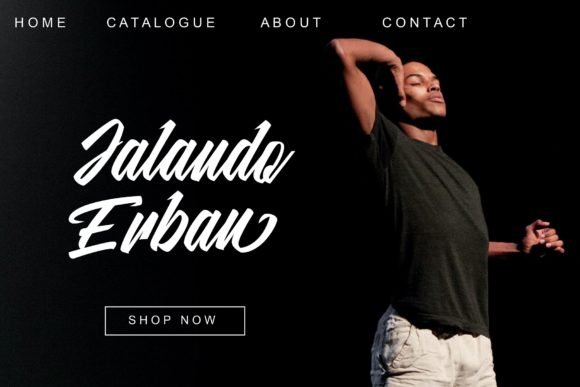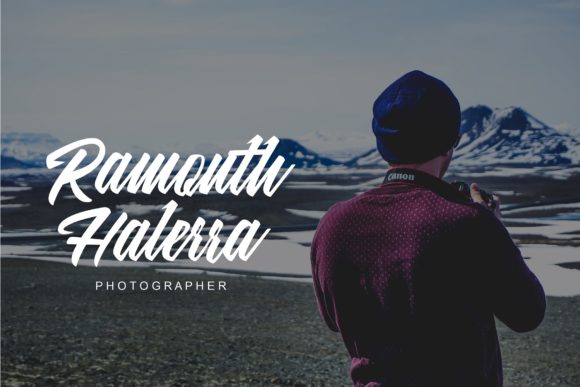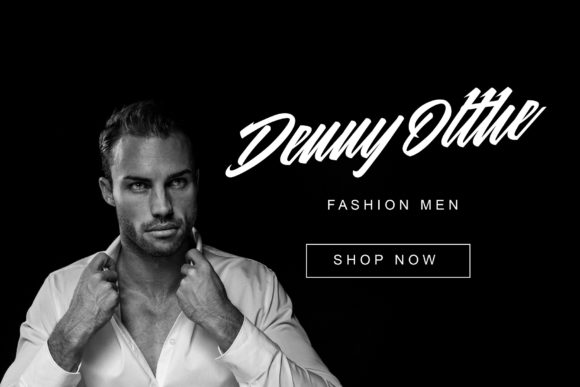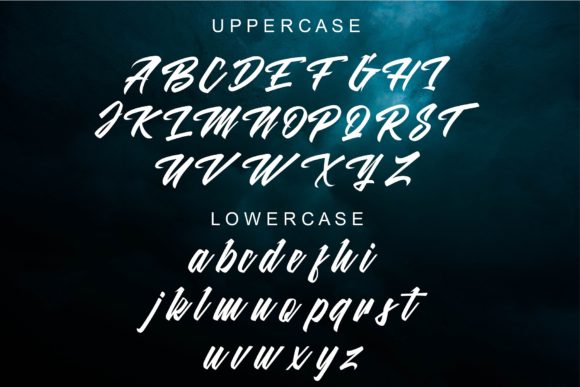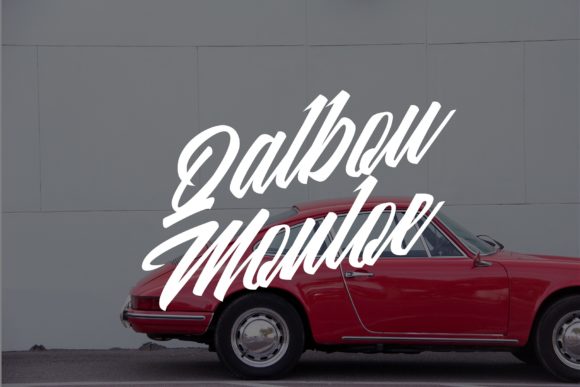
Introduction to Malanaya Font
Have you ever stared at a blank canvas, searching for the perfect font to bring your creative project to life? For designers, finding the right font can be a daunting task, but what if I told you that there’s a bold script font that can elevate your designs and make them stand out?
Enter the Malanaya Font, a high-quality design resource that’s perfect for logotype, website headers, fashion designs, and even wedding card designs. With its unique and stylish look, this font is sure to add a touch of sophistication to any design. And the best part? It’s available for free download, making it an accessible design resource for creatives of all levels.
Key Features of Malanaya Font
• High-quality design resource ideal for creative projects, offering a unique and stylish aesthetic.
• Comes in a transparent background, allowing for seamless integration with various design elements.
• The font is designed to be highly versatile, suitable for a wide range of creative projects, from logos and branding to typography and graphics.
Honest Review: Malanaya Font
As a designer, I’m always on the lookout for high-quality design resources to elevate my creative projects. Recently, I had the chance to work with the Malanaya Font, and I’m excited to share my honest review.
• Unique aesthetic: The Malanaya Font has a distinctive, modern look that sets it apart from other fonts in my collection.
• High-quality vectors: The font files are well-designed and easy to work with, even at larger font sizes.
• Limited language support: The Malanaya Font appears to be optimized for Latin-based languages, and I encountered some issues with non-Latin characters.
• No transparent background: While this isn’t a deal-breaker, I wish the font came with a transparent background option for more flexible design possibilities.
Overall, I’m impressed with the Malanaya Font’s unique design and high-quality vectors. While it has some limitations, it’s still a valuable addition to my design resource collection. If you’re looking for a modern, free font, the Malanaya Font is definitely worth checking out.
Malanaya Font is a high-quality, free design resource ideal for creative projects that require a unique touch. Its transparent background makes it perfect for overlaying on images or using as a standalone element.
Malanaya Font is perfect for creating eye-catching social media graphics, logos, and branding materials. Its unique design makes it ideal for creative projects that require a high-quality, professional look.
Alternatives to Malanaya Font
The Great Vibes Font is a high-quality, elegant script font suitable for various creative projects, such as wedding invitations, certificates, and menus. Its transparent background and free download feature make it a valuable design resource. It compares to Malanaya Font in its sophisticated and stylish appearance, but with a more modern and clean feel.
The Alex Brush Font is a beautiful, handwritten font perfect for adding a personal touch to your designs. It’s ideal for projects that require a touch of elegance and sophistication, such as magazine covers, book titles, and advertisements. While it lacks the boldness of Malanaya Font, it makes up for it with its delicate and refined strokes.
The Dancing Script Font is a playful, cursive font ideal for designs that need a fun and energetic vibe. It’s perfect for creative projects like posters, social media graphics, and party invitations. In comparison to Malanaya Font, it has a more lively and carefree feel, but may lack the sophistication and professionalism.
Can I use the Malanaya Font with a transparent background?
Yes, the Malanaya Font is designed to work well with transparent backgrounds, making it perfect for use in digital products and designs that require a high level of visual flexibility. The font’s transparent background allows you to easily overlay text on top of images or other design elements, creating a seamless and professional-looking design.